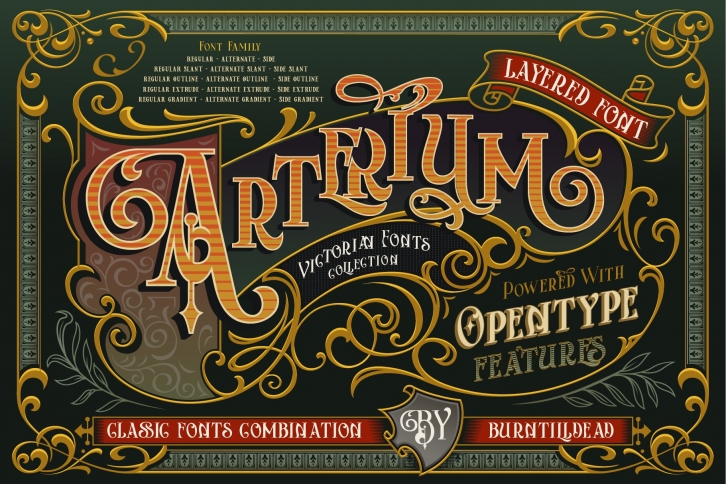
Arterium is a beautiful font that was designed by Burntilldead. It's a great choice for designers and creatives who need such a font. It was released on April 7, 2021 and the file size is 21.59 MB. Arterium may give a more youthful, expressive and casual look to your project. It is a very beautiful, refined, elegant, and high-quality font.